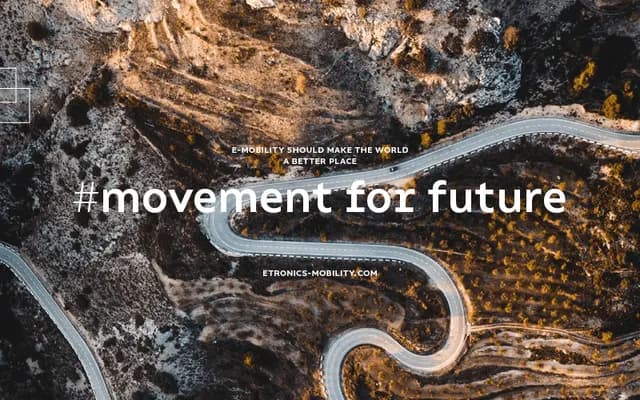
A console-inspired humanist sans with selective serif detailing, available in 32 styles across two subfamilies with extensive OpenType support.
Designed with legibility and technical character in mind, Compiler draws on the aesthetic of console typefaces to produce a humanist sans with a large x-height and serifs applied selectively to certain letterforms. The family spans eight weights from Thin to Black, each with matching italics, and splits into two subfamilies: the accented Compiler and the plainer Compiler Plain. Each style ships with over 900 glyphs and OpenType features including small capitals, oldstyle figures, discretionary ligatures and a slashed zero.
The foundry explicitly describes Compiler as a humanist sans, distinguished by selective serifs on certain letterforms borrowed from console typeface conventions, placing it in a hybrid humanist category.